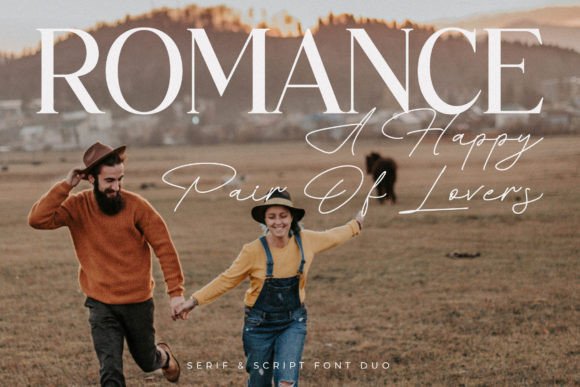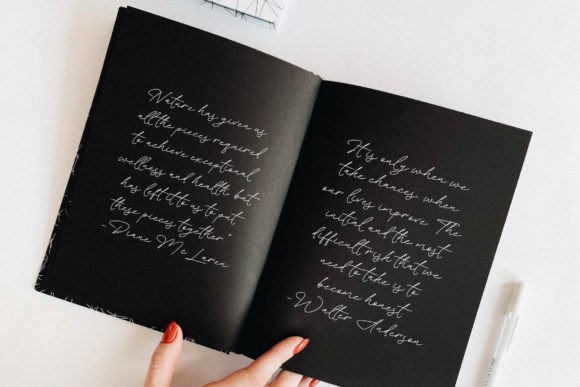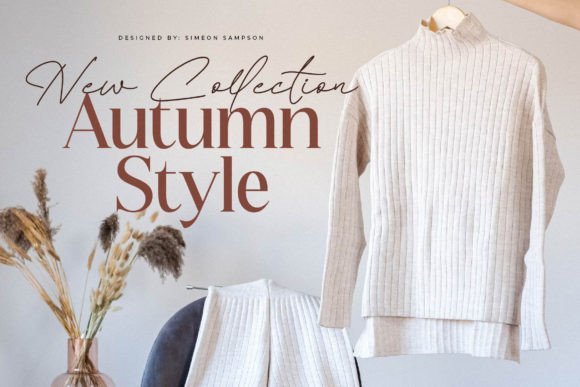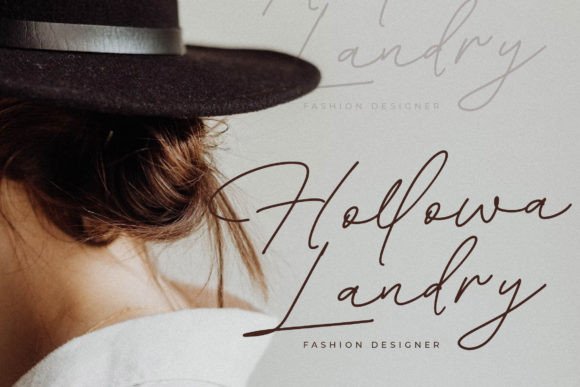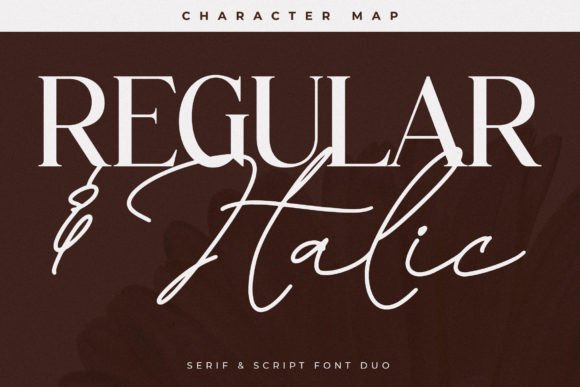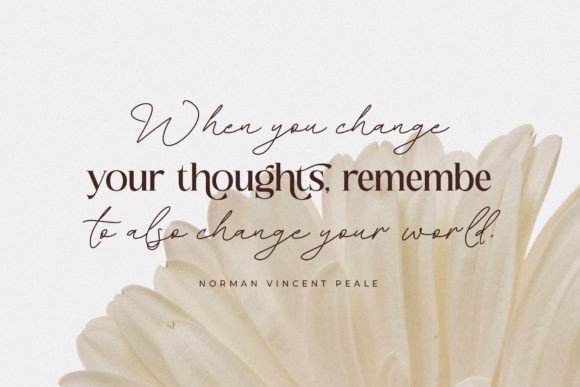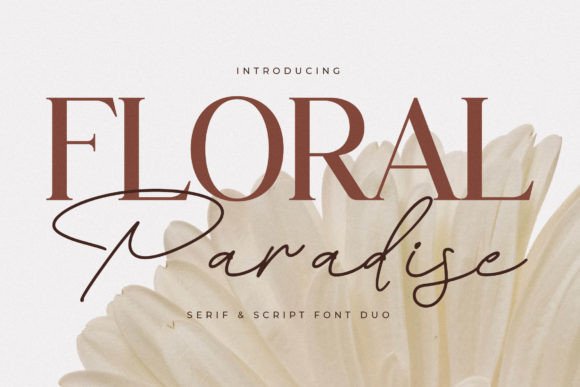
Introducing Floral Paradise Font: Elevate Your Designs with Elegance and Luxury
We are thrilled to introduce the Floral Paradise Font Duo, a stunning combination of serif and script typefaces that will add a touch of sophistication and modernity to your designs. This beautiful font is perfect for designers and crafters looking to create elegant and luxurious visual content. Whether you’re working on a logo, book or movie title, fashion brand, magazine, or any other project, Floral Paradise Font is the ideal choice.
Unique Style and Modern Look
What sets Floral Paradise Font apart is its unique style and modern look. The serif and script typefaces are carefully crafted to provide a distinctive and eye-catching appearance that will make your designs stand out. The font’s elegant lines, curves, and swashes will add a touch of luxury and sophistication to your work, making it perfect for high-end brands and designs.
Versatile and Multifaceted
Floral Paradise Font is incredibly versatile and can be used for a wide range of design projects. Some of the many uses for this font include:
• Elegant logos and branding
• Book and movie titles
• Fashion brand designs
• Magazine and newspaper layouts
• Clothing and textile designs
• Lettering and quotes
• And many more!
What You’ll Love About Floral Paradise Font
Here are just a few things you’ll love about Floral Paradise Font:
• Unique and modern design
• Elegant and luxurious appearance
• Versatile and multifaceted
• Perfect for high-end brands and designs
Tips for Using Floral Paradise Font
To get the most out of Floral Paradise Font, here are a few tips:
• Use it for headlines and titles to add a touch of elegance and luxury
• Pair it with a simple sans-serif font for a beautiful contrast
• Experiment with different colors and textures to add depth and interest
• Use the glyphs and ligatures to add a personal touch to your designs
In conclusion, Floral Paradise Font is a stunning and versatile font that will elevate your designs to new heights. With its unique style, modern look, and PUA encoding, it’s the perfect choice for designers and crafters looking to create elegant and luxurious visual content. Whether you’re working on a logo, book or movie title, fashion brand, or any other project, Floral Paradise Font is sure to impress.